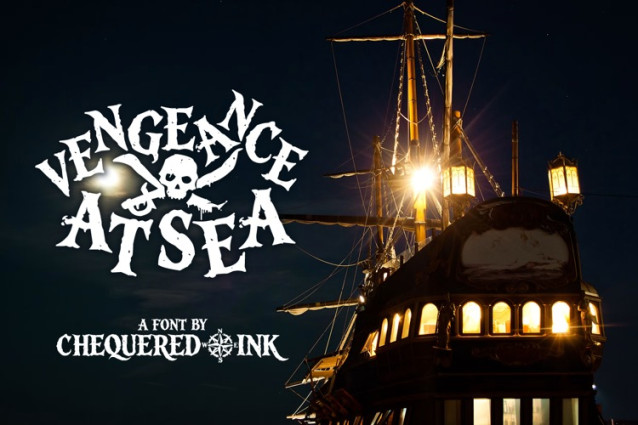
Vengeance At Sea Font
Vengeance At Sea Font is a simple and modern display font suitable for quotes, logos, headings, titles, and many more. Use it on any of your creative projects, and your designs will become outstanding!